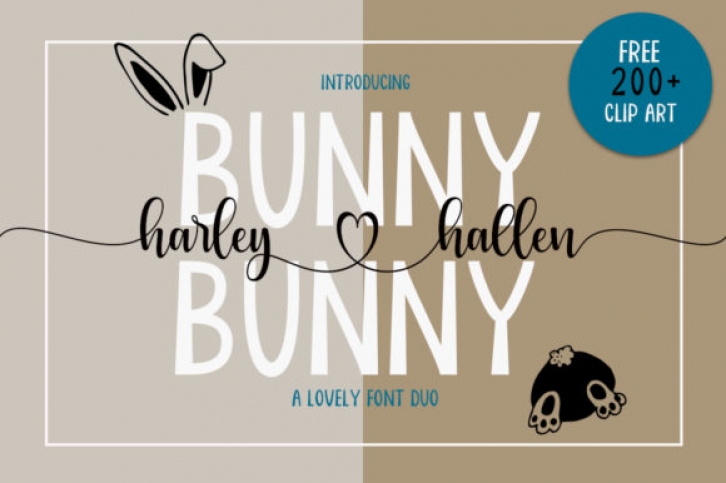
Bunny Harleyhellen is a lovely and delicate duo font (sans serif and script). Its distinct and refined letters make this font a masterpiece. Fall in love with its incredibly versatile style and use it to create spectacular designs! With an adaptable and readable style, it will look stunning on wedding invitations, thank you cards, quotes, greeting cards, logos, business cards and every other design which needs a handwritten touch.